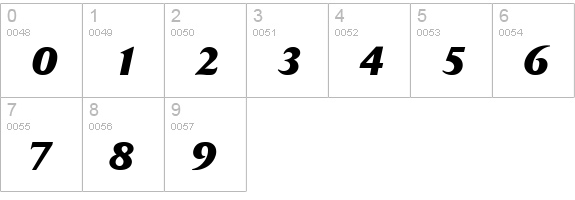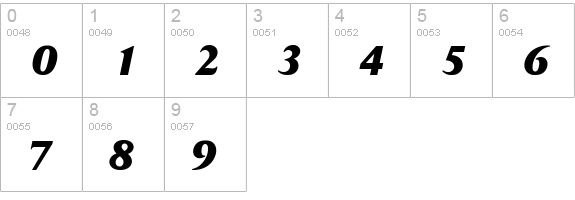
Daily News Extra Bold Italic Font Details
Daily News Extra Bold Italic is a strong, high-contrast, italic variant in the Daily typeface family \xE2\x80\x94 well suited to headlines, attention-grabbing titles, and strong calls-to-action.
Introducing the captivating and bold Daily News Extra Bold Italic font! This eye-catching typeface embodies the essence of modern typography with its strong and commanding presence. Designed to make a statement, this font exudes confidence and sophistication. With its distinctive italic style, Daily News Extra Bold Italic stands out from the crowd, adding a touch of elegance to any design project. Whether you're creating eye-catching headlines, attention-grabbing logos, or stylish editorial layouts, this font is sure to leave a lasting impression. One of the best aspects of Daily News Extra Bold Italic is that it is free to use, making it accessible to designers, creatives, and enthusiasts alike. You can easily download this versatile font at FontsMarket.com, a trusted source for high-quality fonts. Its unique blend of boldness and italics creates a harmonious balance that immediately draws the eye. The thick strokes and sharp angles command attention while the slanted italic style adds a sense of dynamism and movement. Daily News Extra Bold Italic is perfect for various design applications, from print to digital, allowing you to explore endless creative possibilities. Its versatility shines through in headlines, posters, advertisements, packaging, and more, ensuring your message is conveyed with impact and flair. The meticulous attention to detail in Daily News Extra Bold Italic is evident in every letterform, ensuring legibility and readability even at smaller sizes. This font is designed to make your words stand out, enhancing the overall visual experience for your audience. So, if you're looking for a font that combines boldness, elegance, and versatility, Daily News Extra Bold Italic is the perfect choice. Download it for free at FontsMarket.com and unleash its potential to elevate your designs to new heights.